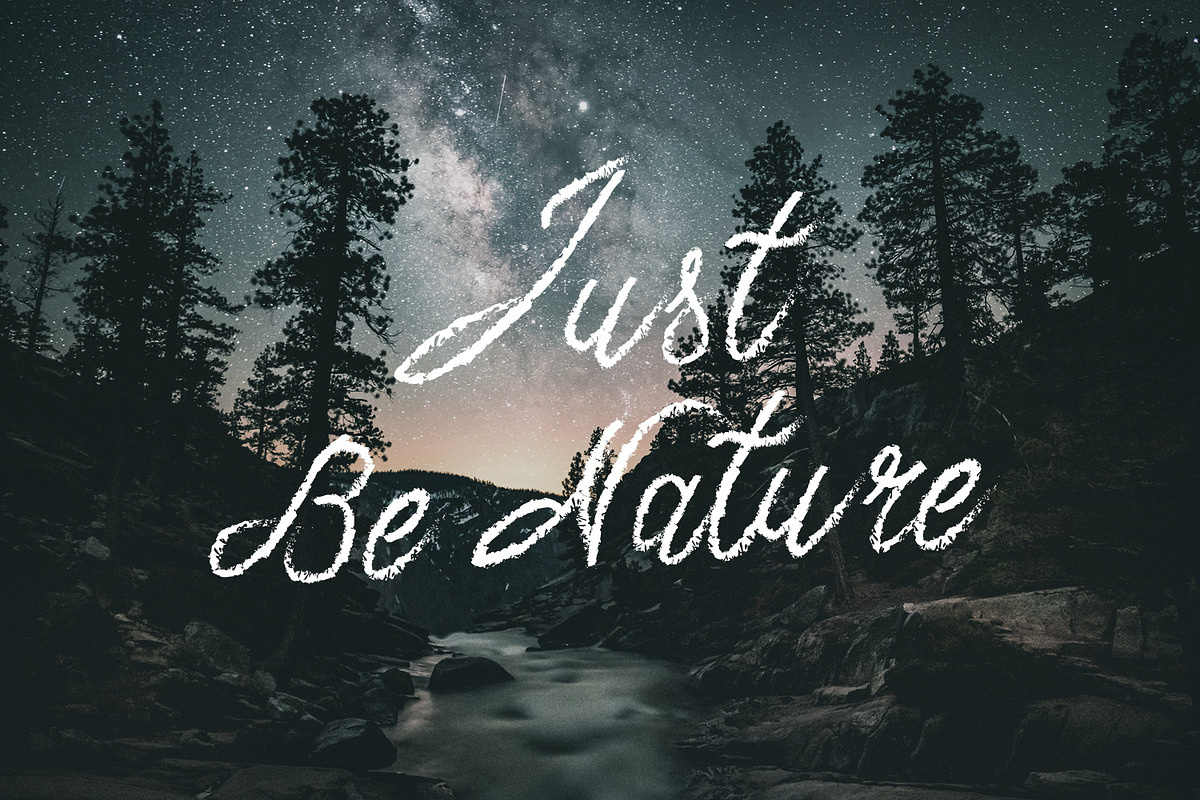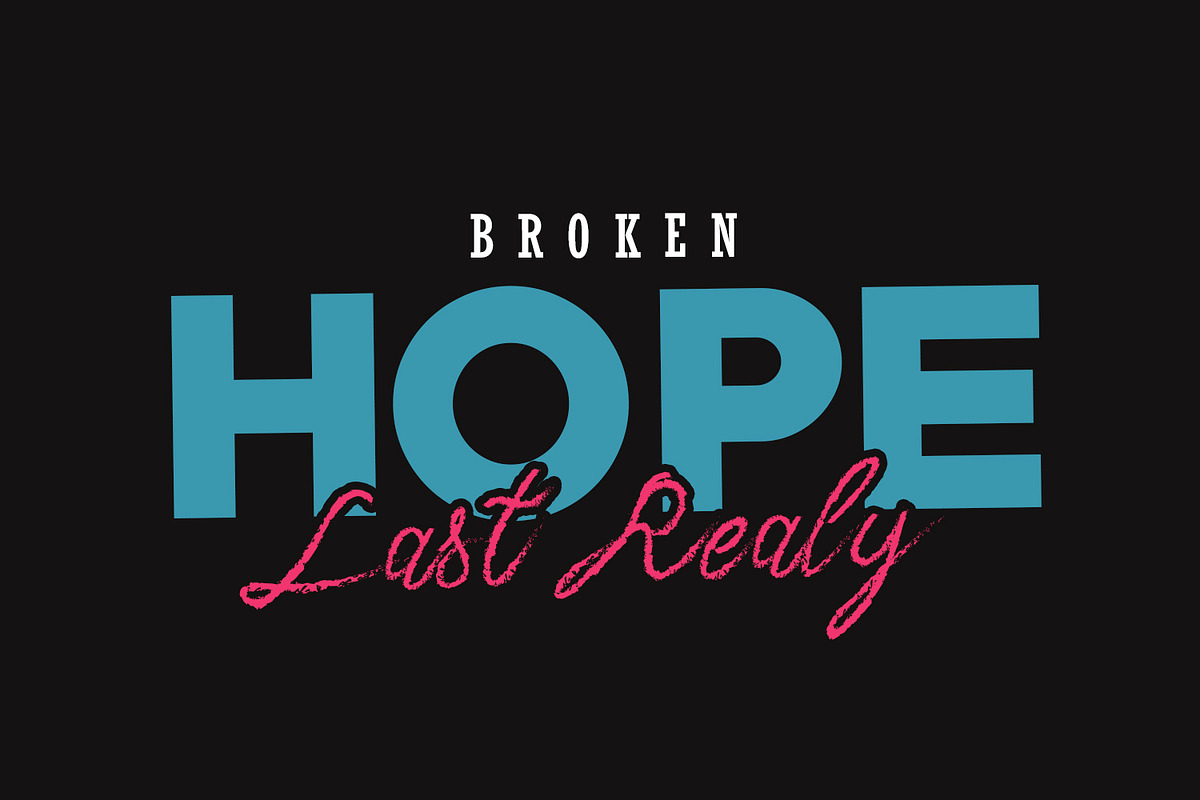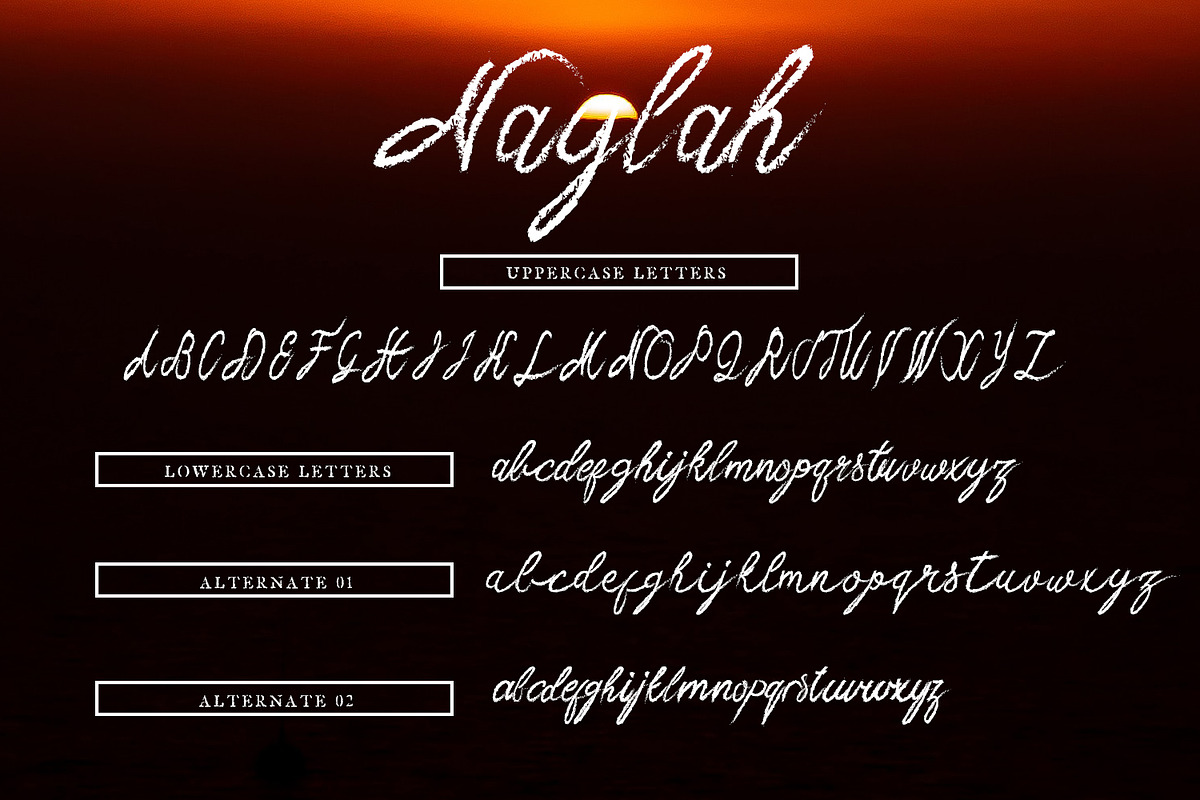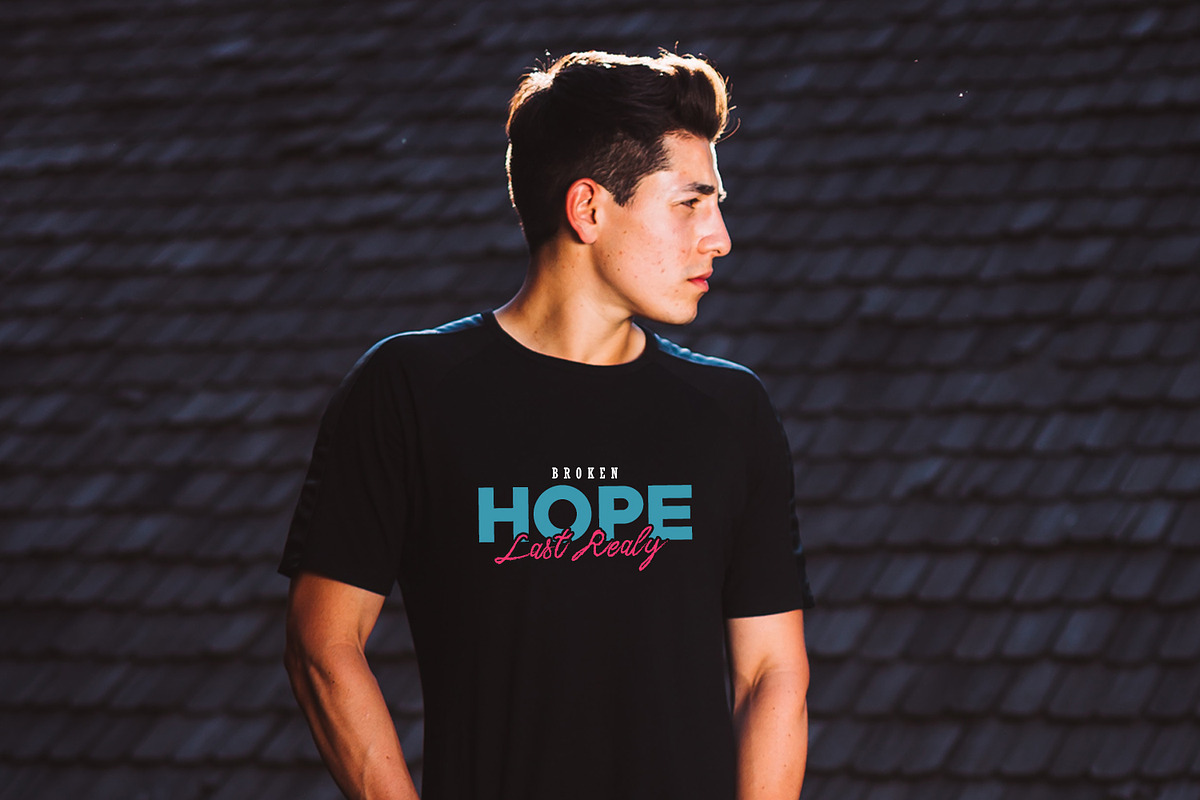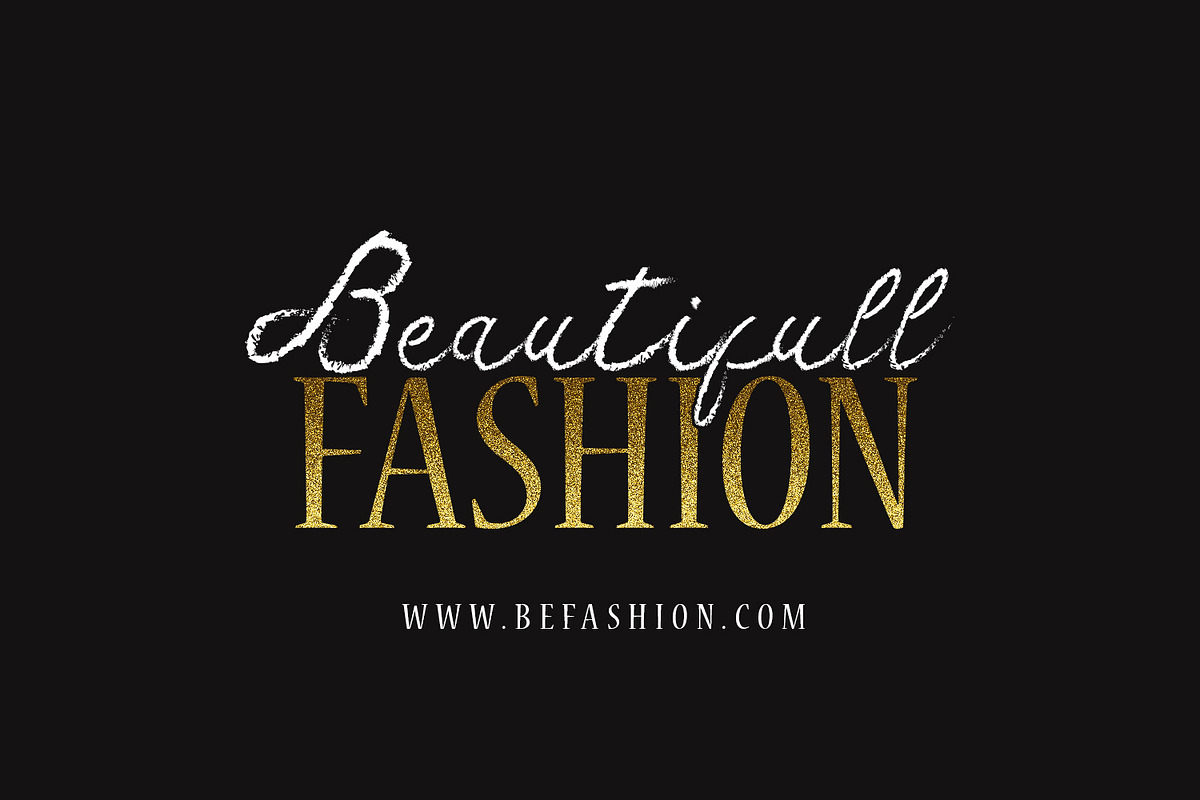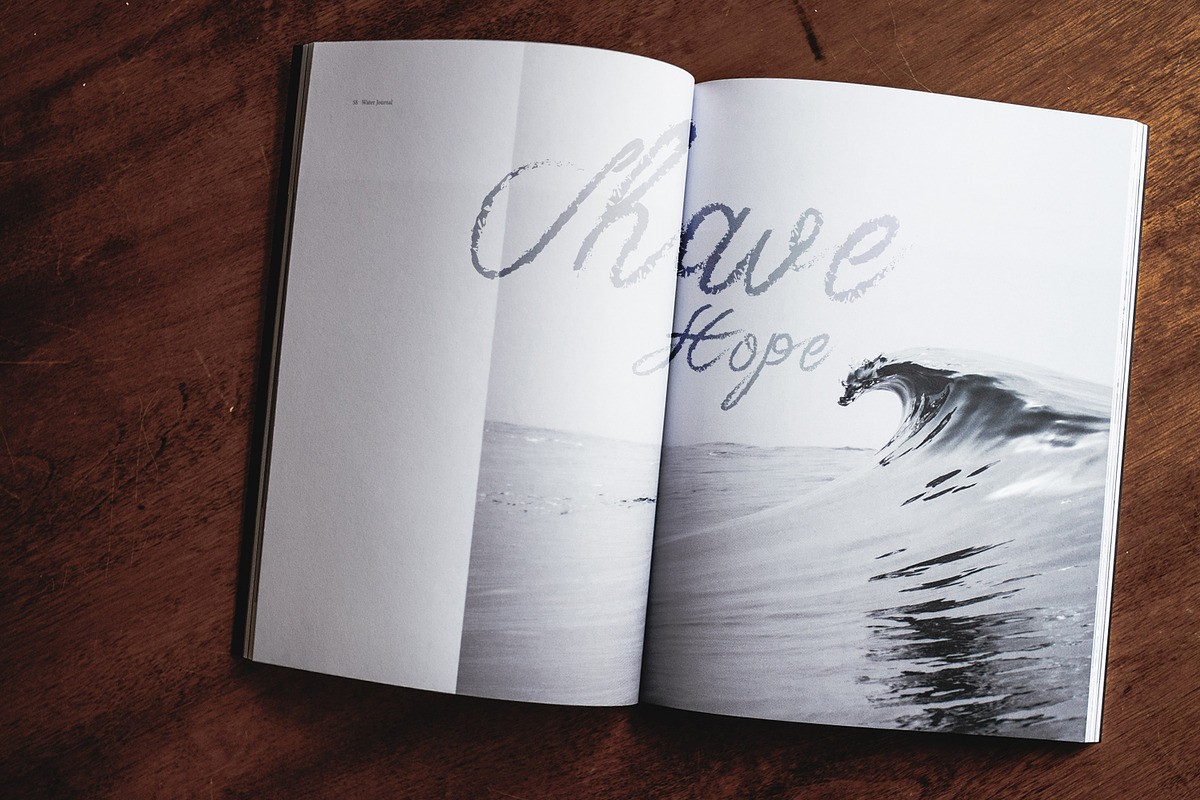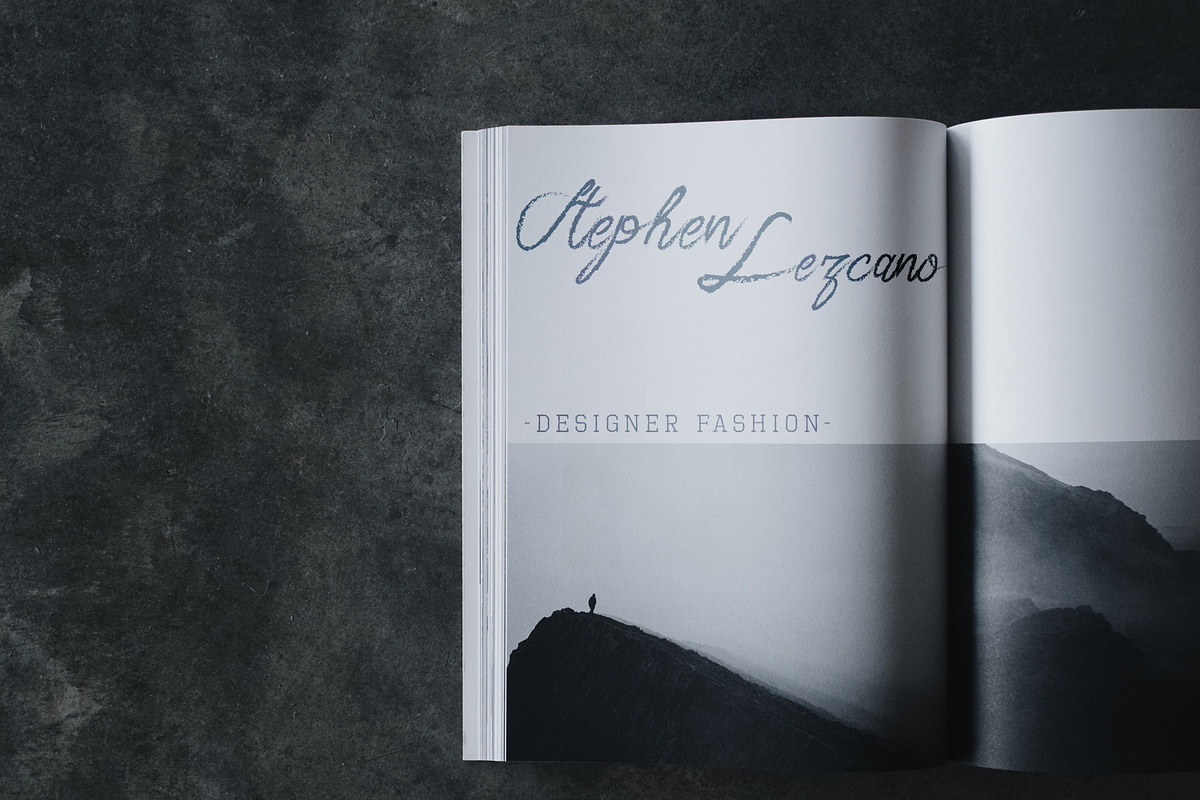
Nalyah - Casual Handwritten Font
Introducing: Nalyah - Casual handwritten font with personal charm. With a quick sweep and a very different style, Naylah is perfect for branding projects, household design, product packaging - or as an overlay.
1. Nalyah • Handwritten font containing upper & lower case letters, numbers and various complete marks
2. Nalyah Alt • Naylah Has 2 alternative characters, with lowercase and uppercase characters that are completely new. If you want to avoid the letters that are visible all the time to recreate custom styles, or try different tenses, just switch to this font for additional layout options.
Nalyah - Casual Handwritten Font by Arendxstudio fits naturally into Branding, posters, packaging, typography.